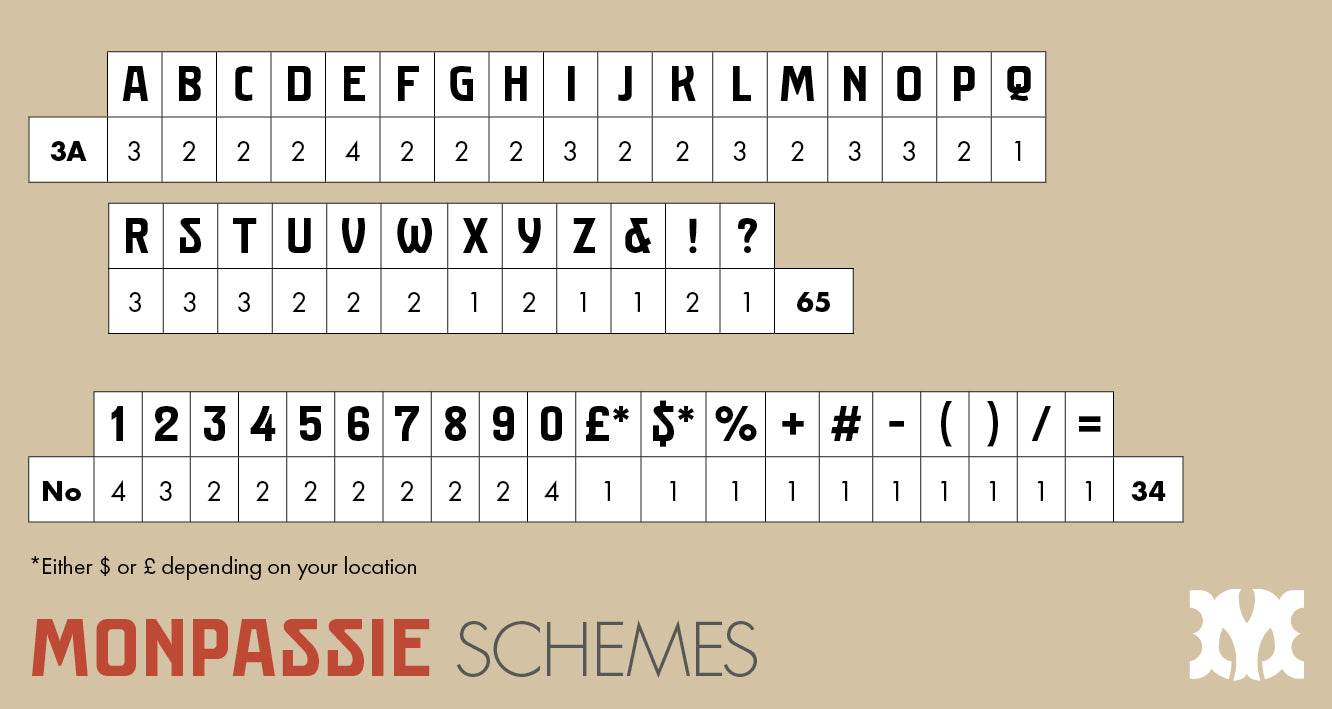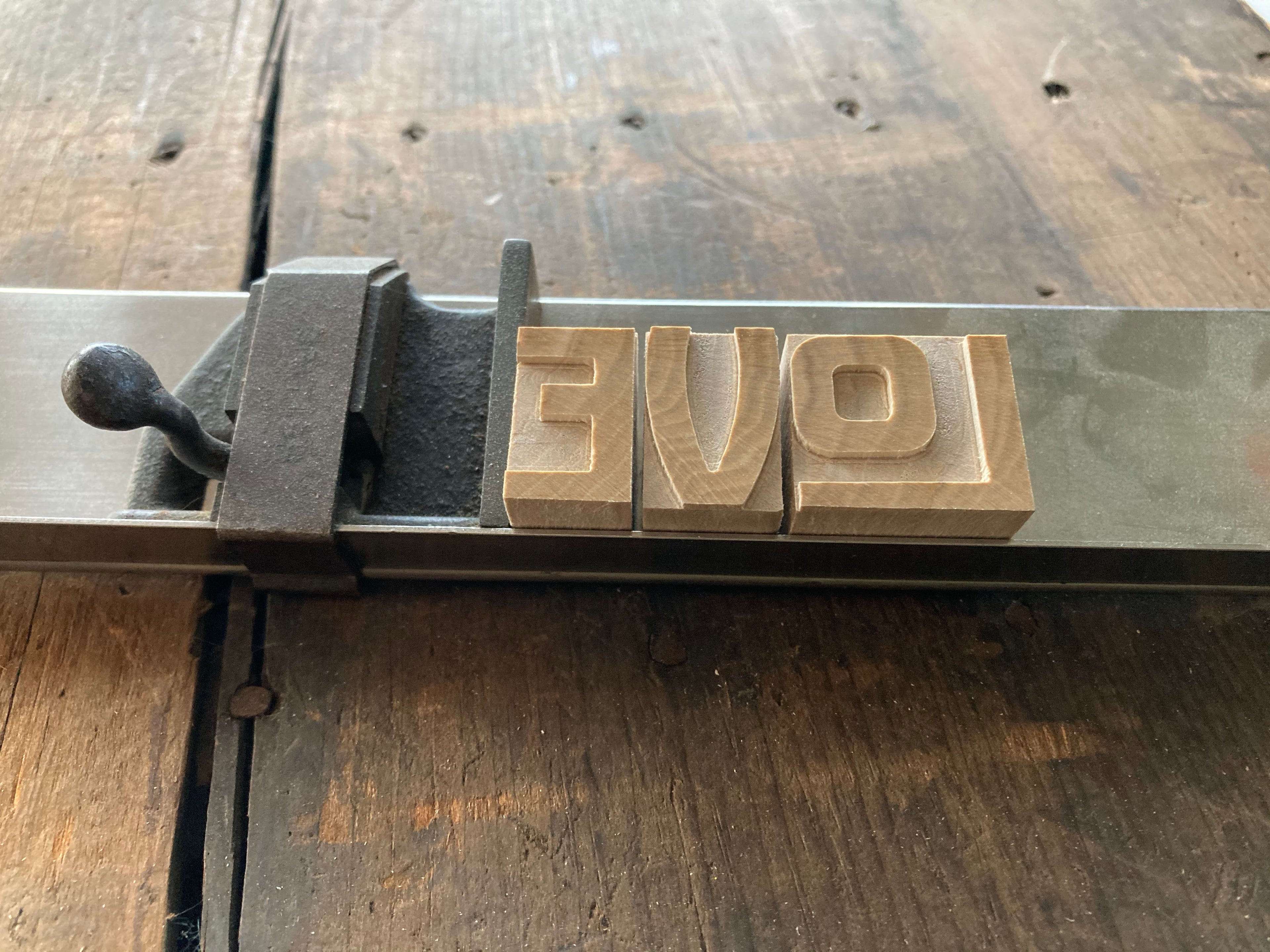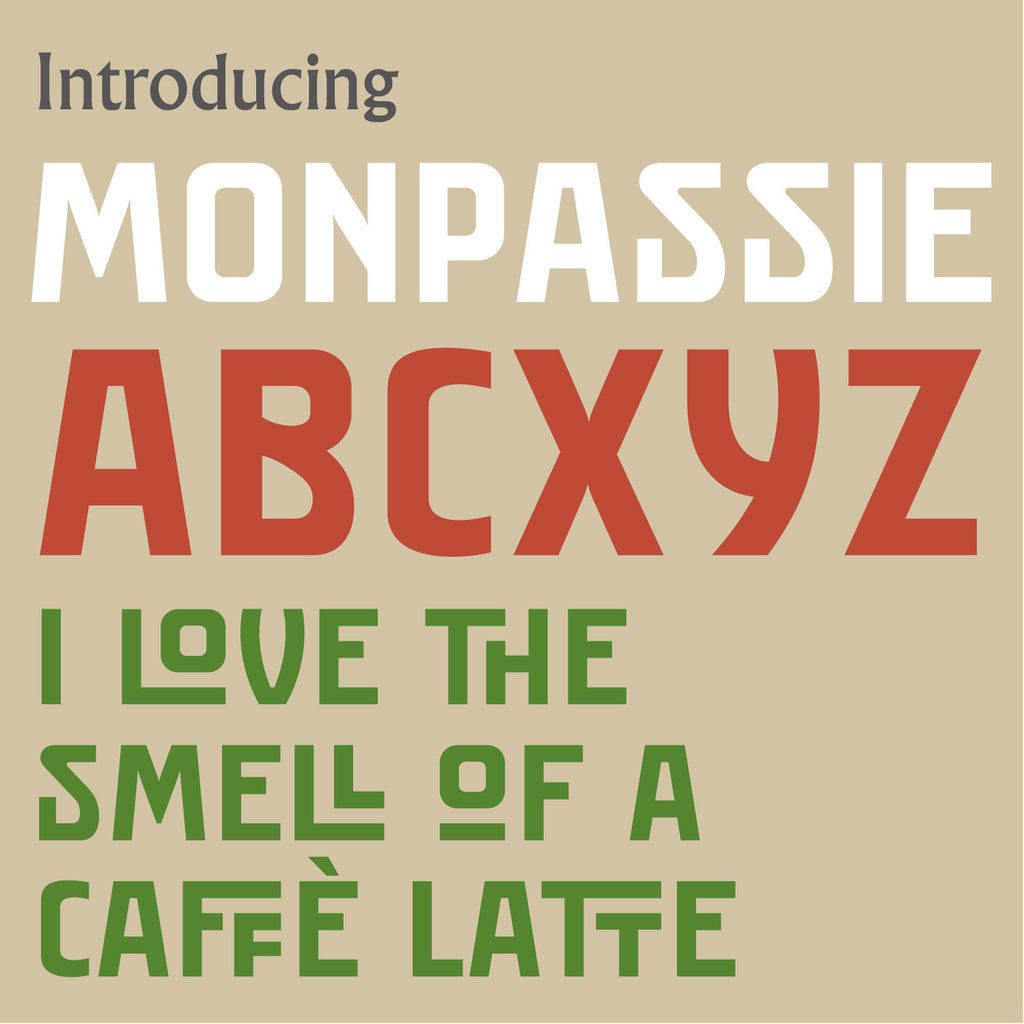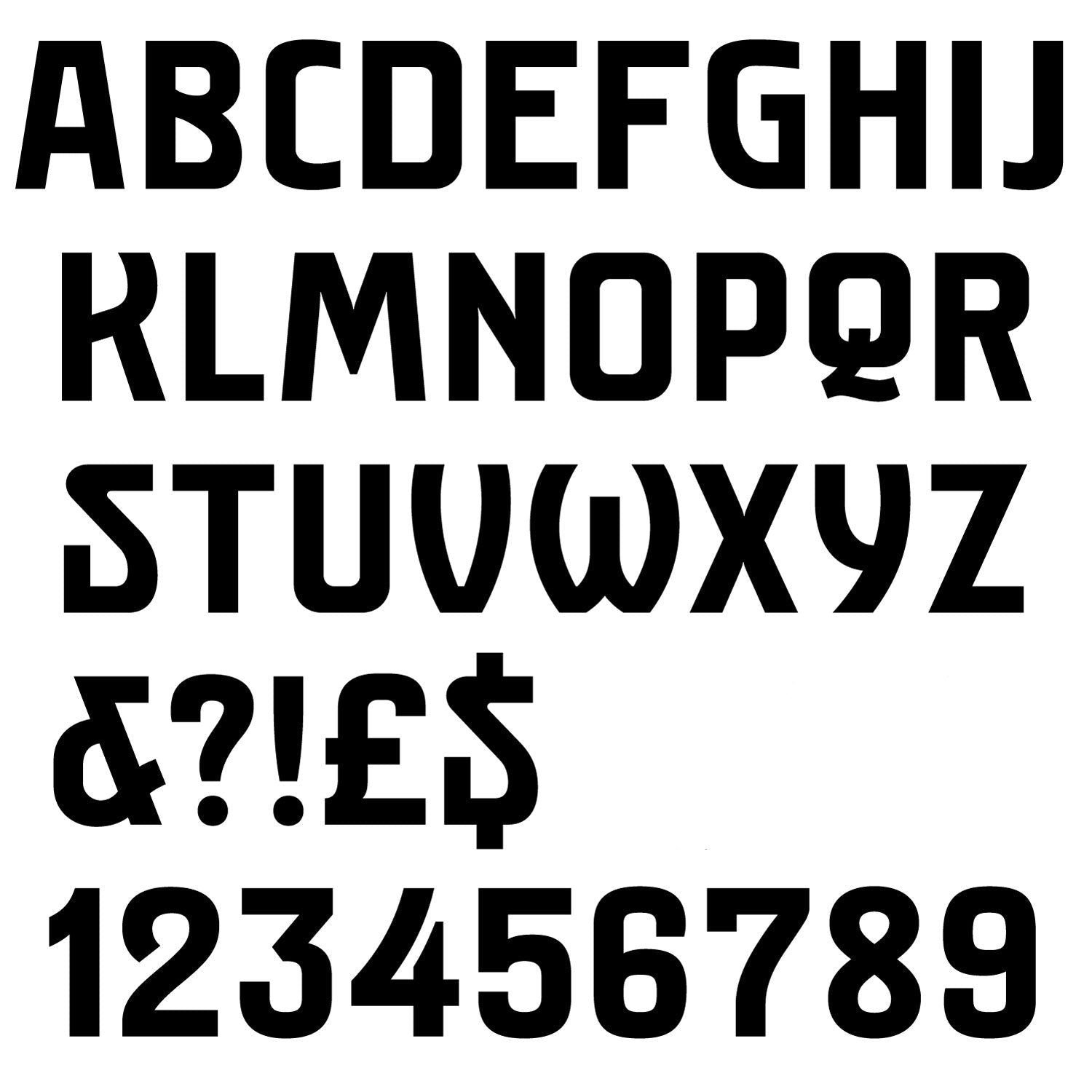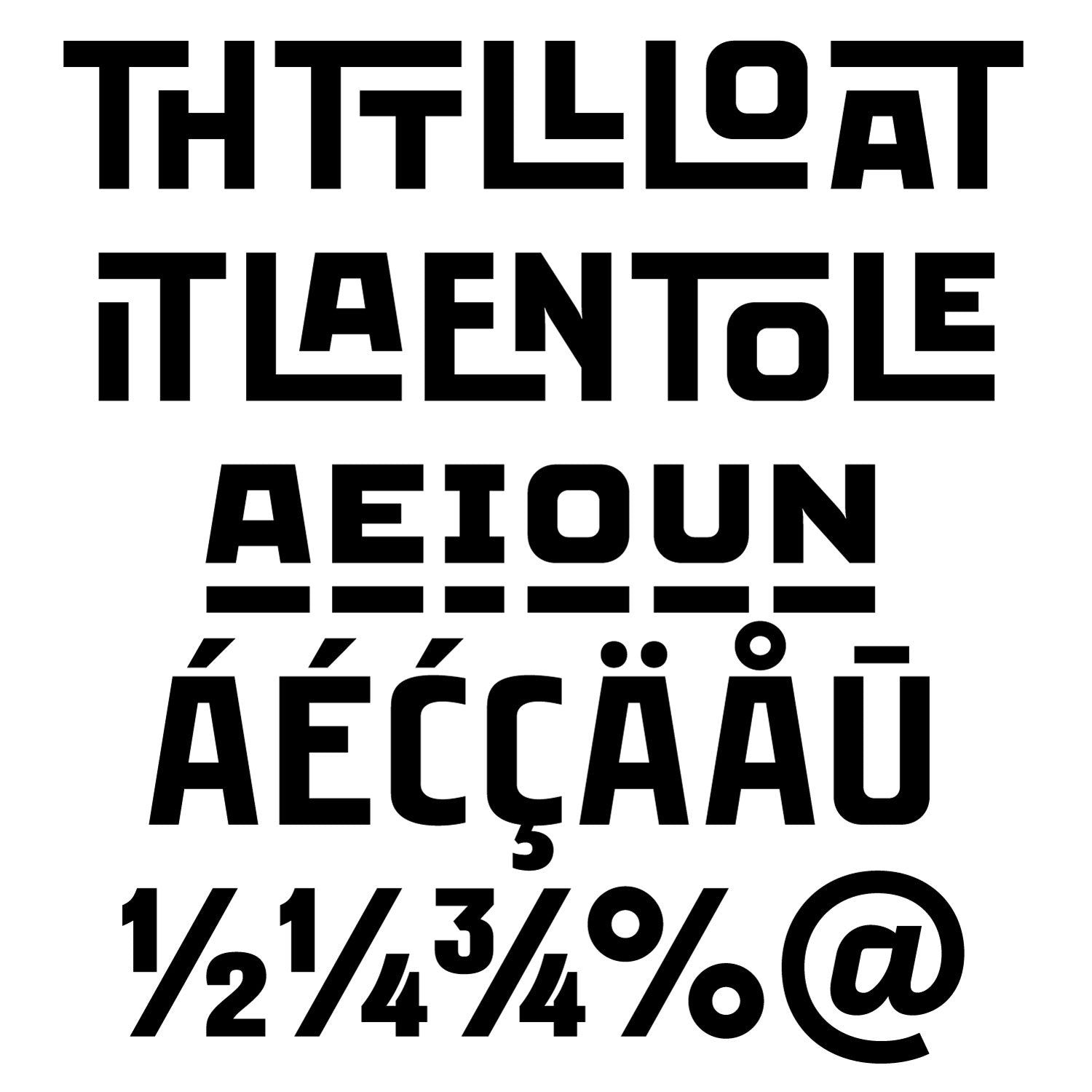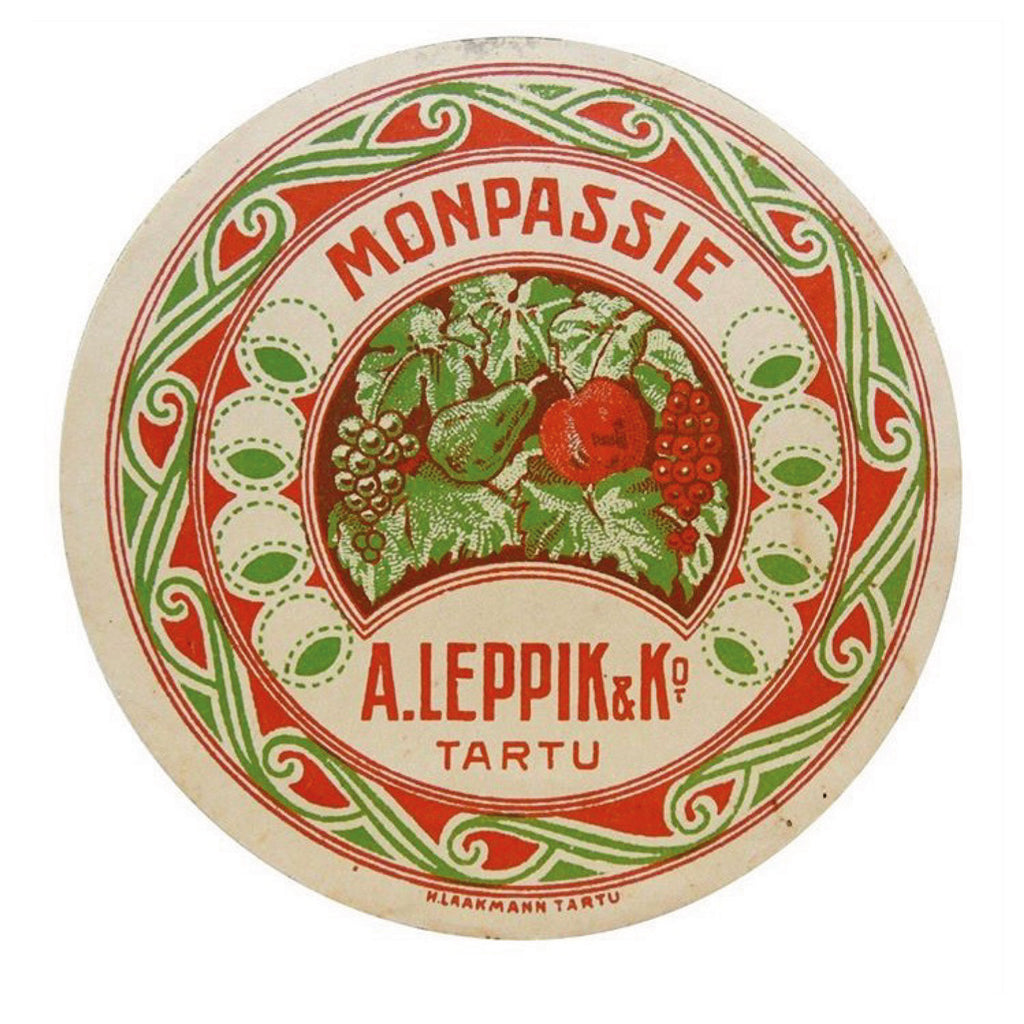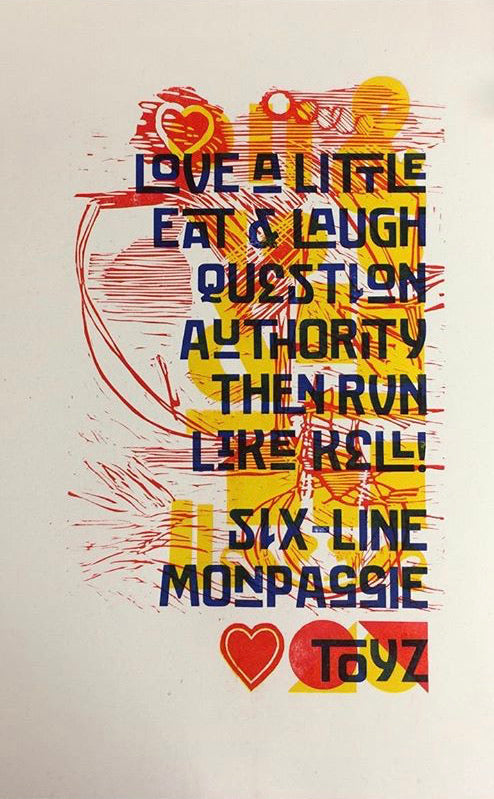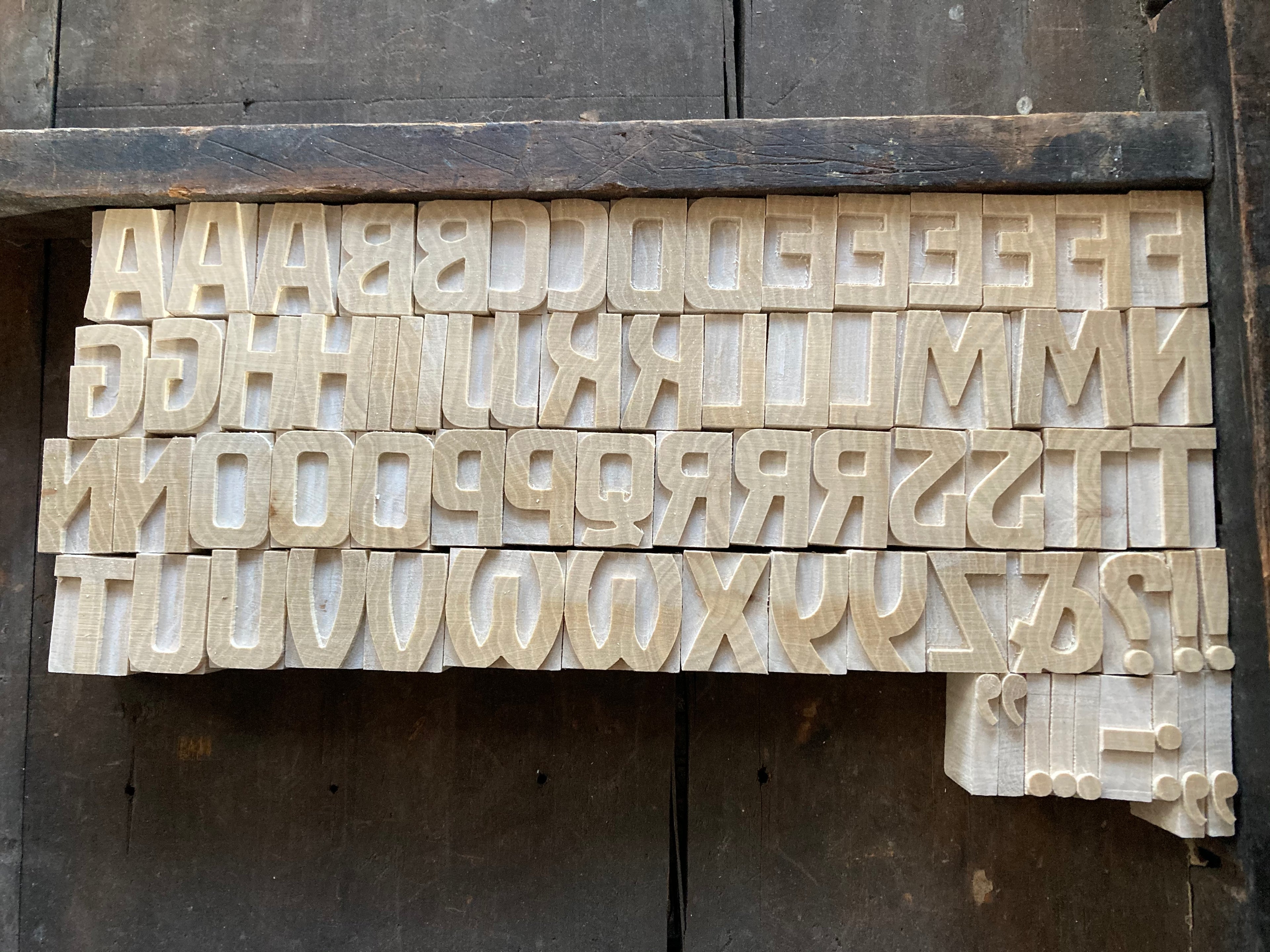
'Monpassie' letterpress woodtype typeface
Introducing 'Monpassie' - inspired by a label found in the Estonian town of Tartu and designed by type designer Mart Anderson. Includes ligatures, punctuation and numbers, along with accents for use in European languages.
10 line (42.3m) and 6 line (25.4mm/1 inch) version cut from end grain English hardwood using a combination of modern CNC technology and traditional hand woodworking tools (including an original printers saw), made to English type-high (0.918in or 23.3mm) within plus or minus 0.1mm tolerance, sealed with shellac and hand finished with a traditional polished printing surface.
Printed sample by Robert Chapman.